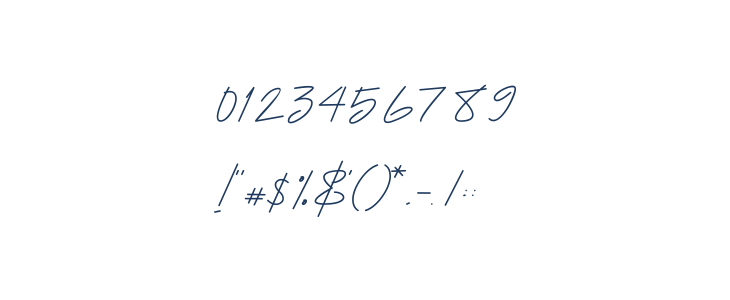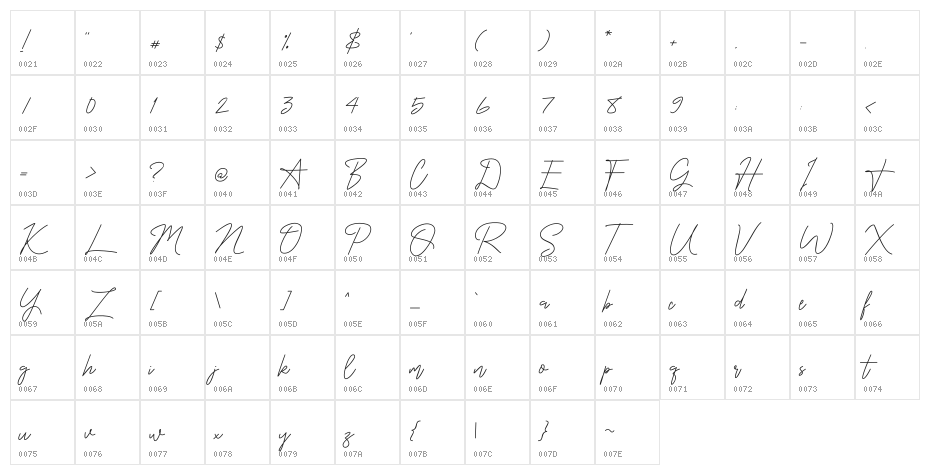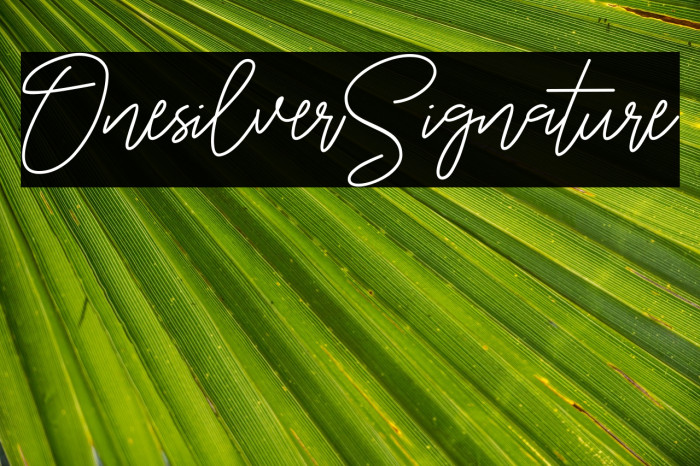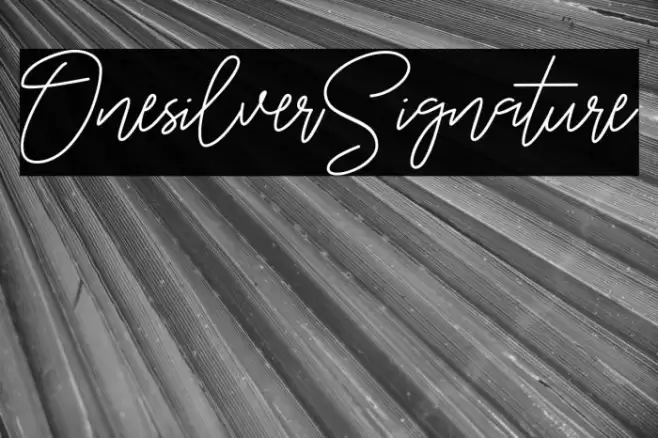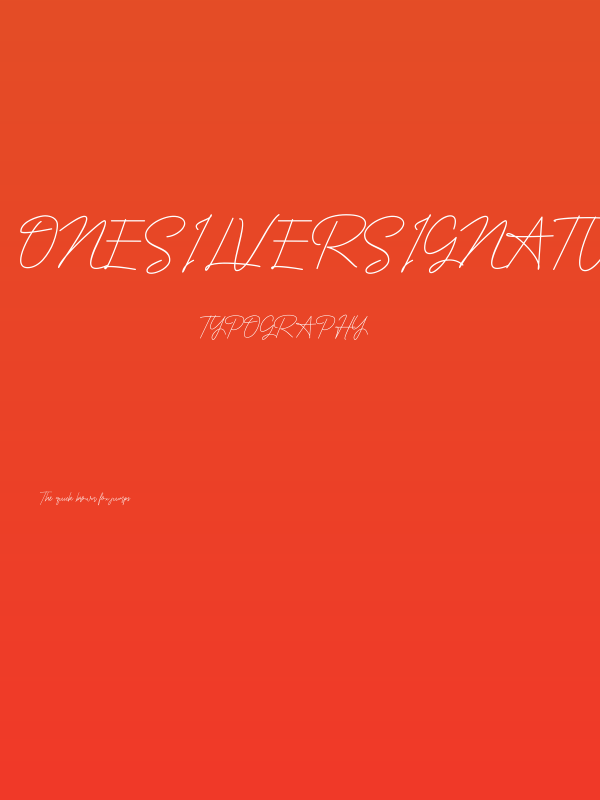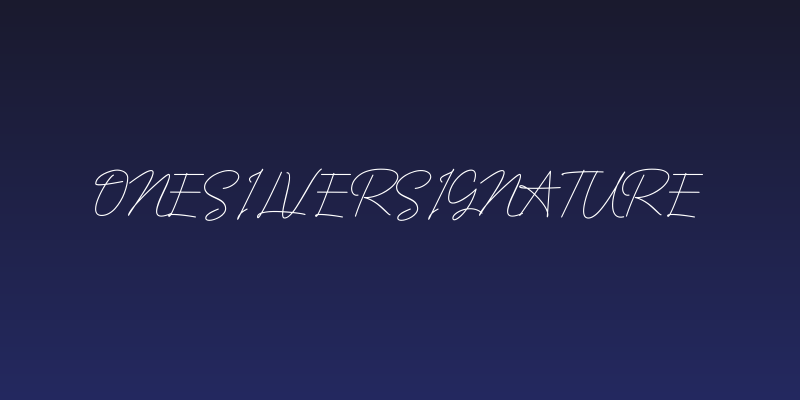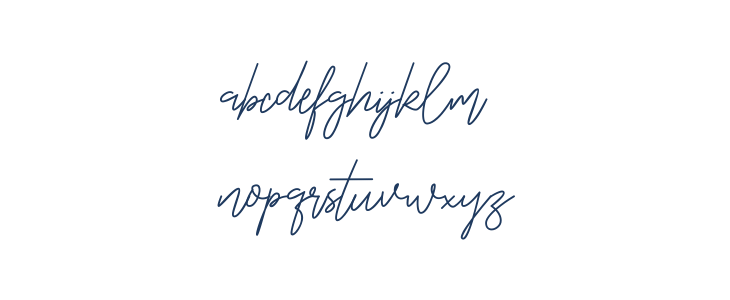
OnesilverSignature Font
OnesilverSignature Description
This elegant script font features a fluid and graceful style, reminiscent of a personal handwritten signature. The uppercase letters are tall and slightly slanted, with smooth curves and delicate loops, giving a sophisticated and refined appearance. The lowercase letters maintain a consistent flow, with some characters connecting seamlessly to others, enhancing the cursive aesthetic. Numbers and special characters are designed with the same attention to detail, ensuring a cohesive look throughout. The overall design exudes a sense of elegance and personal touch, making it ideal for projects that require a touch of class and individuality.